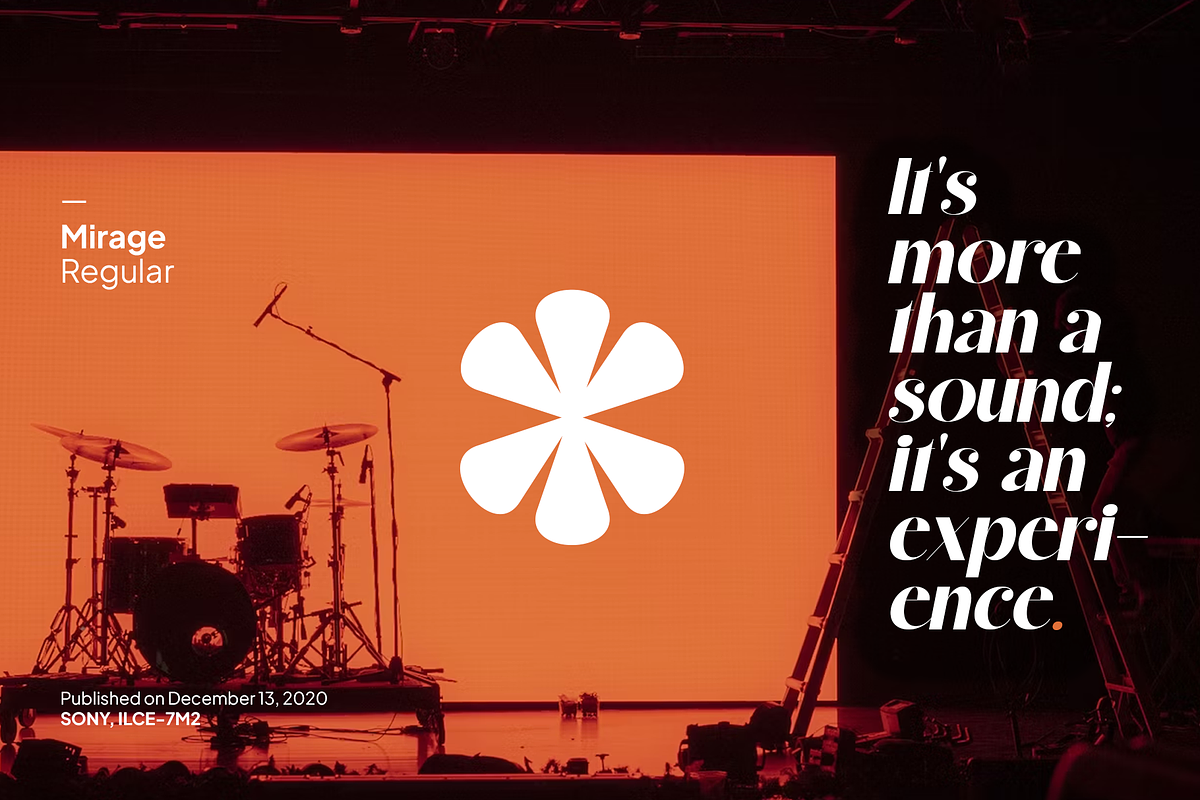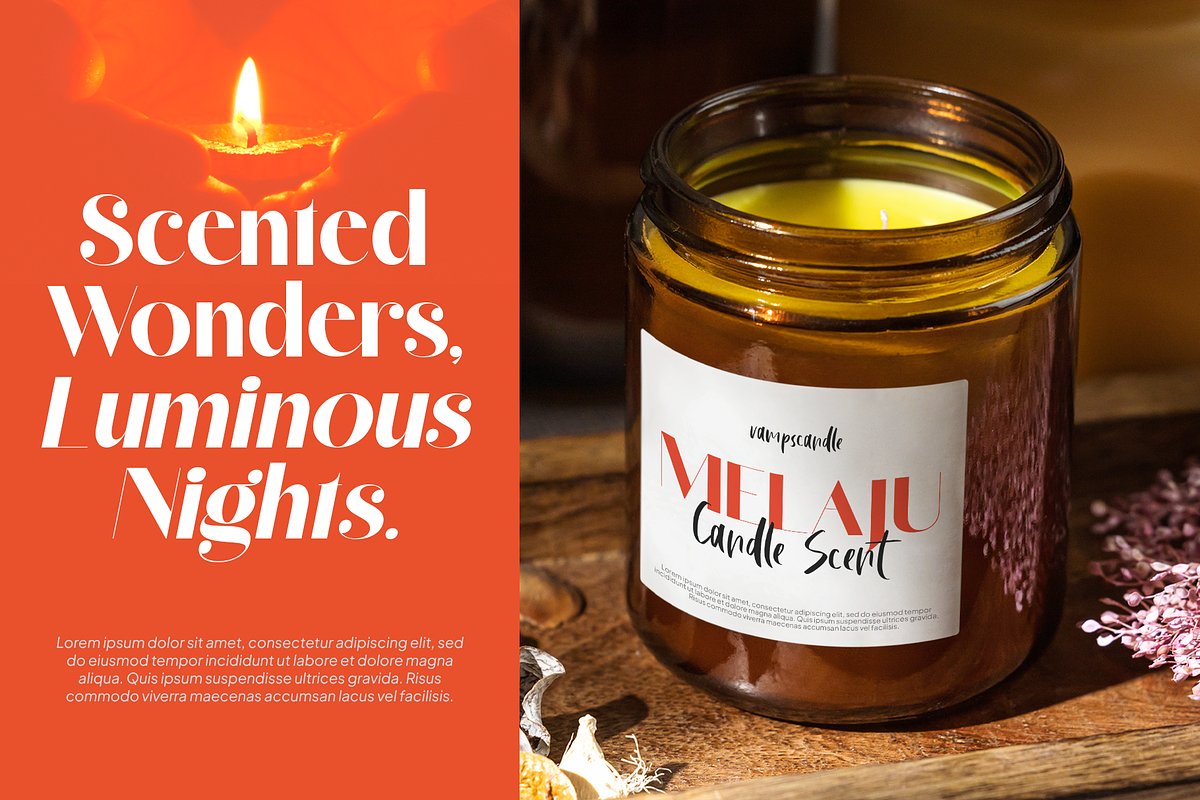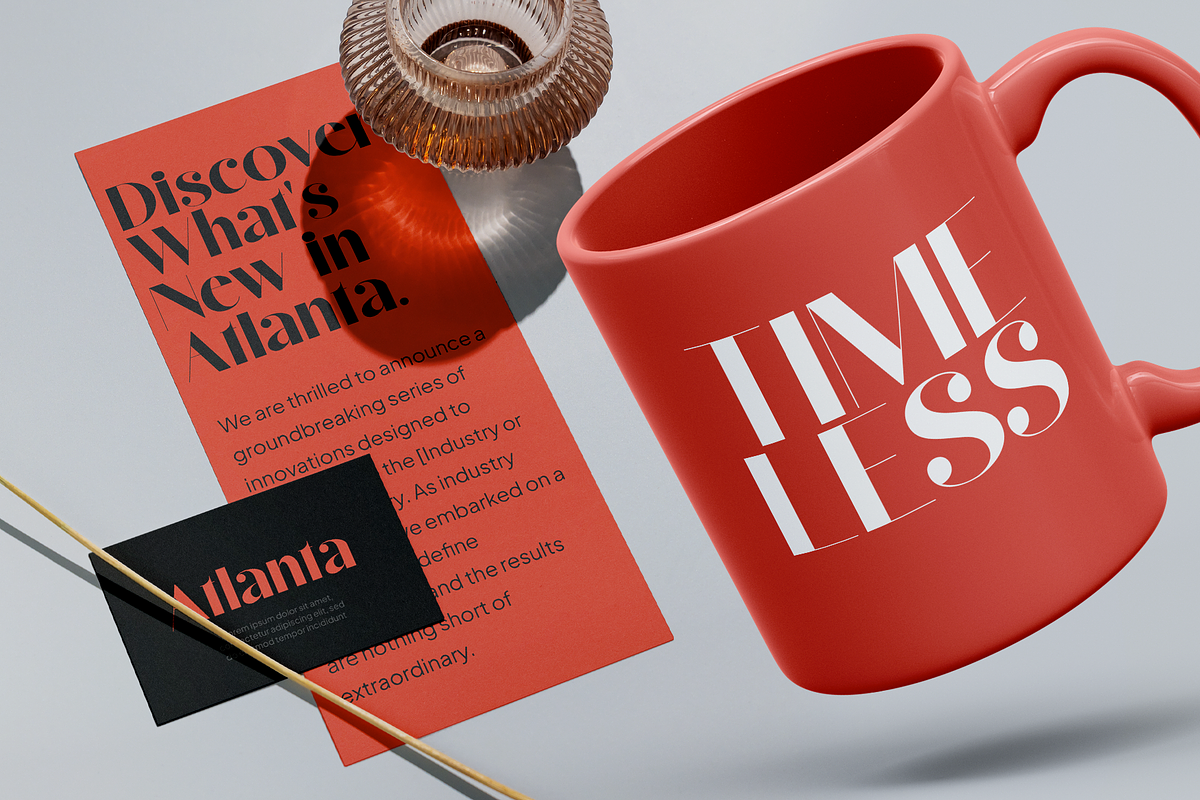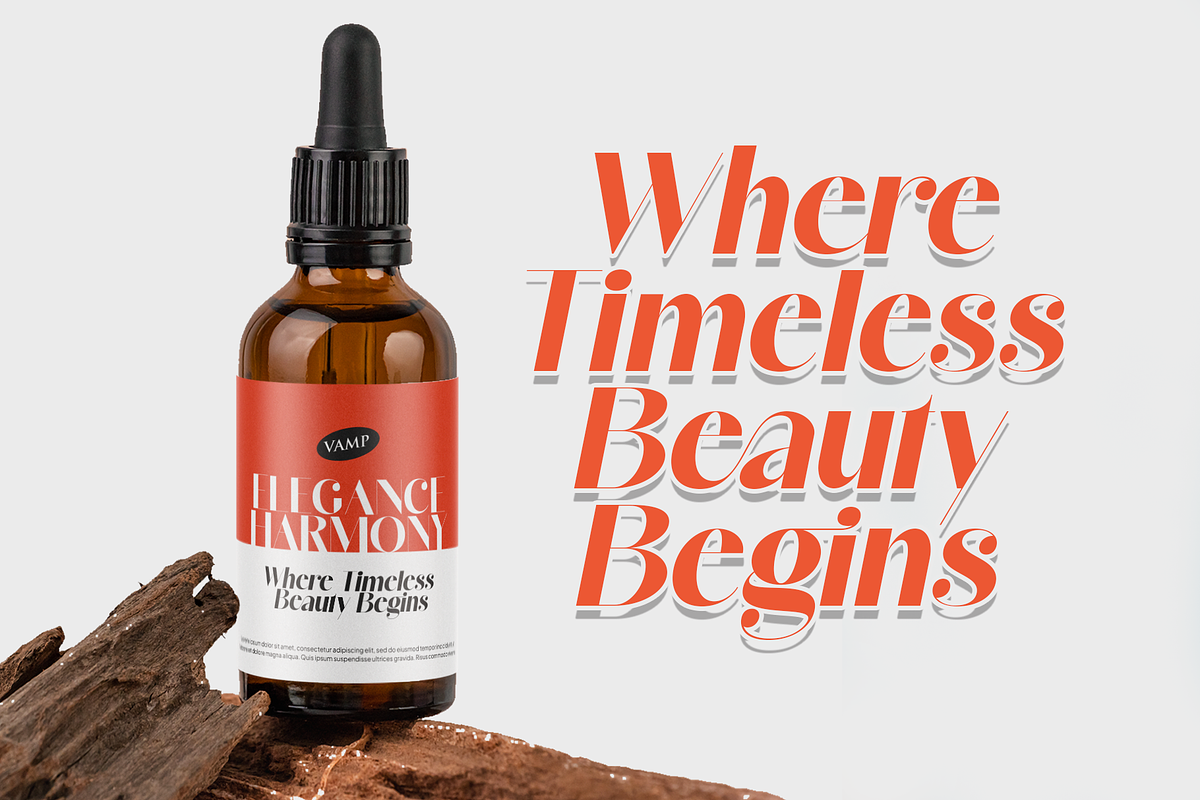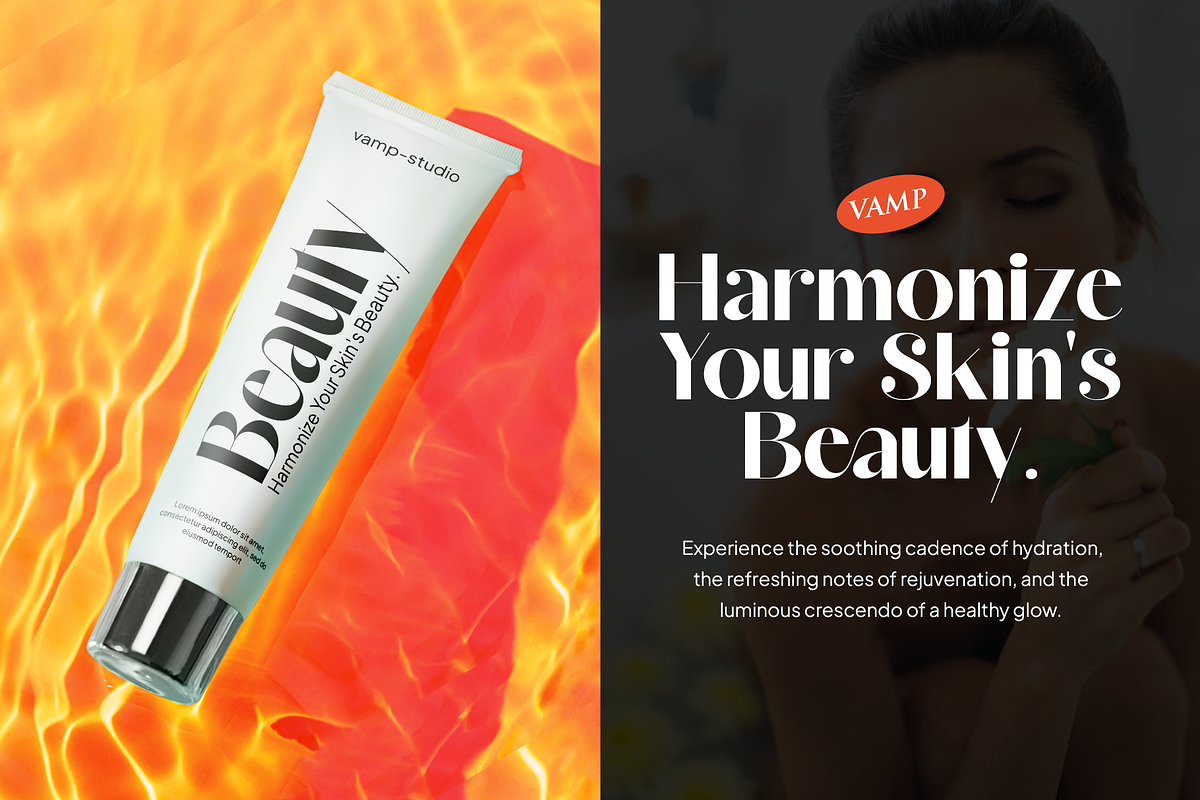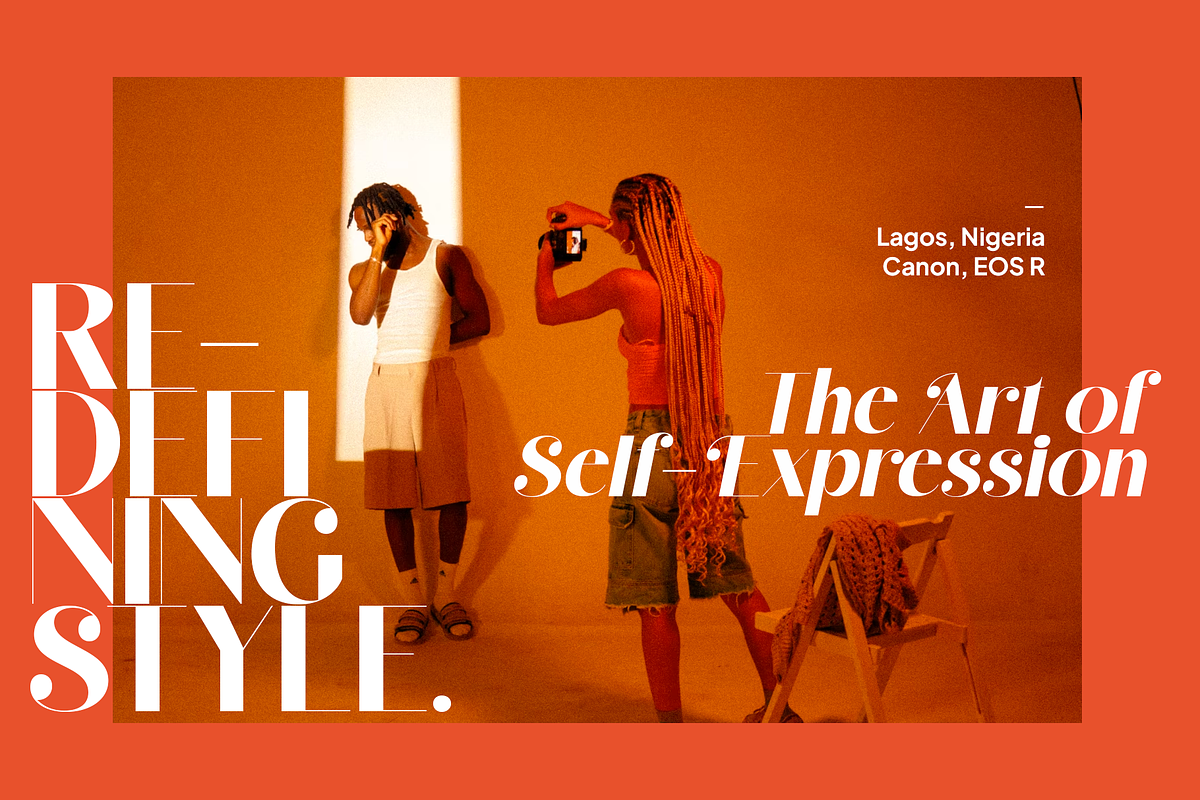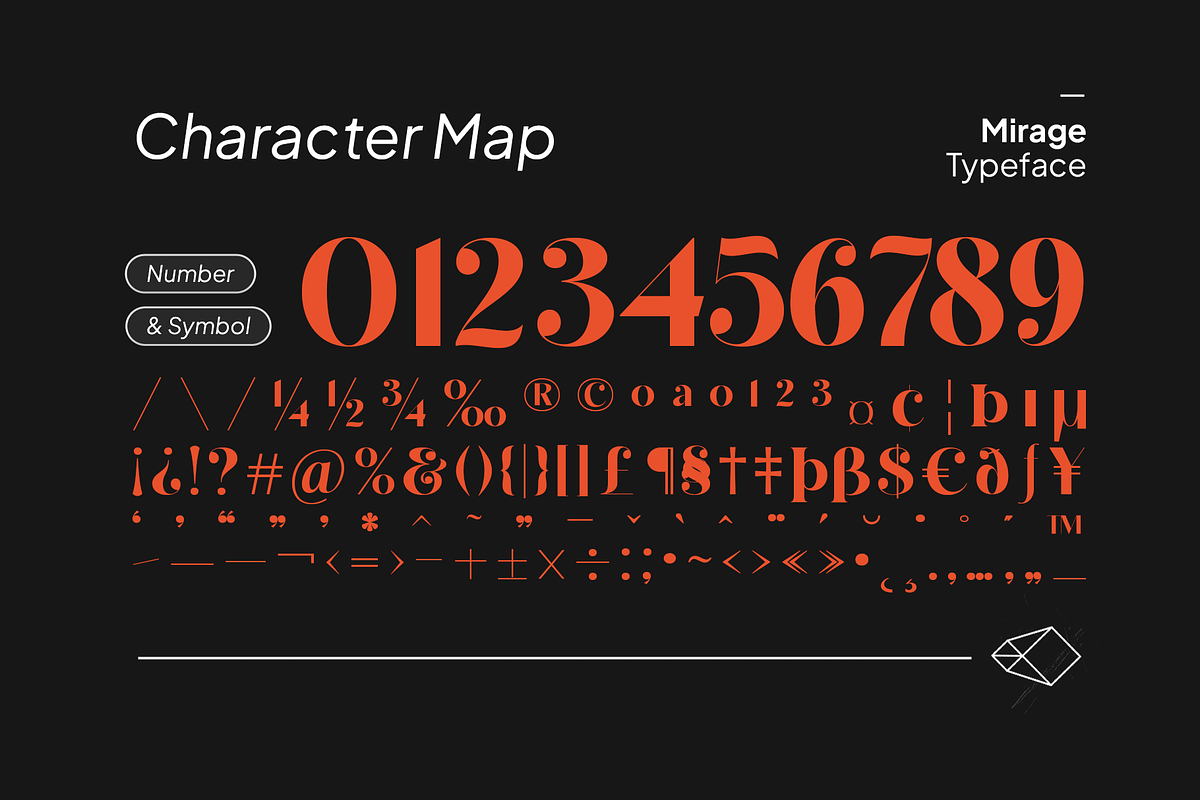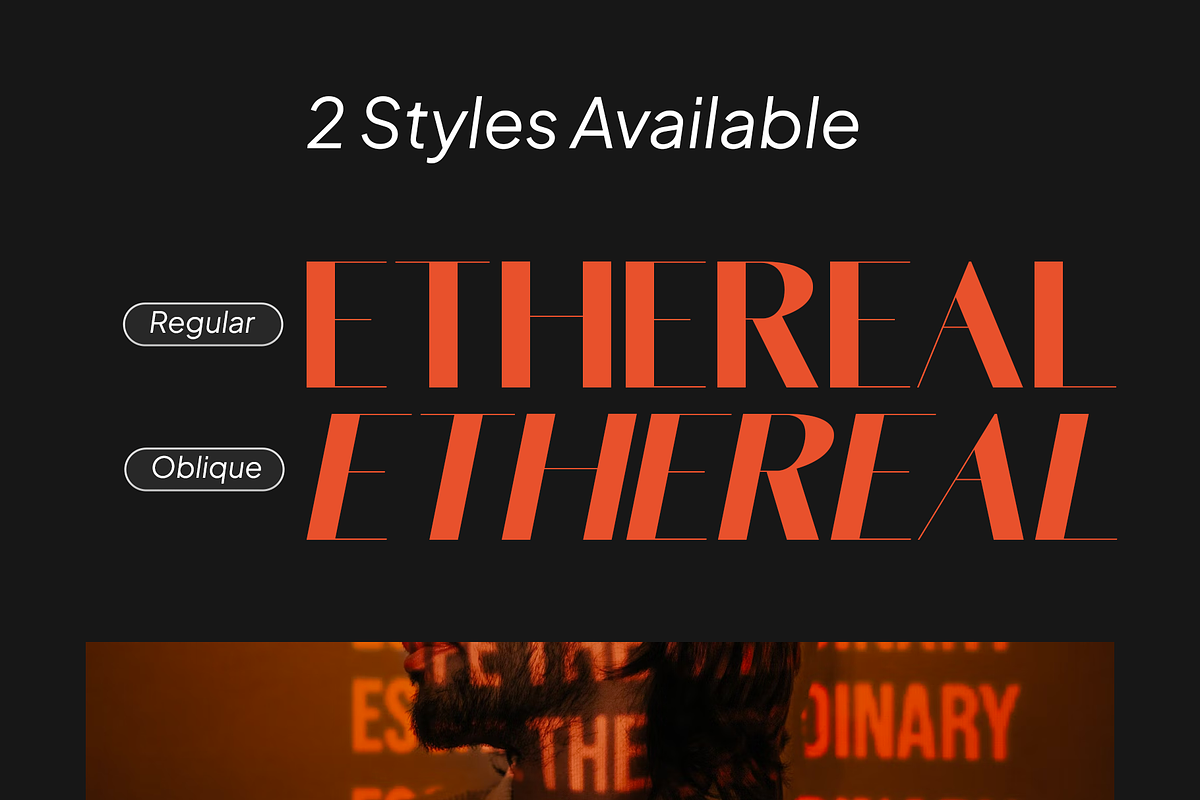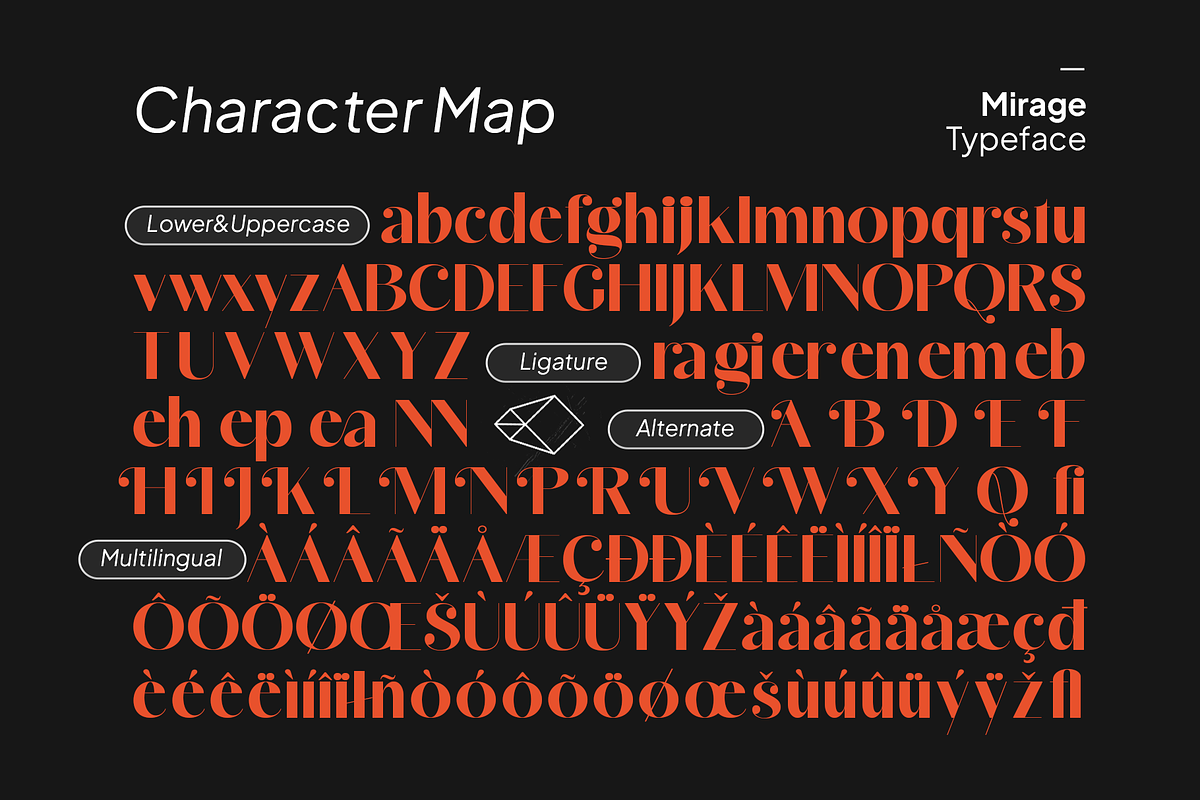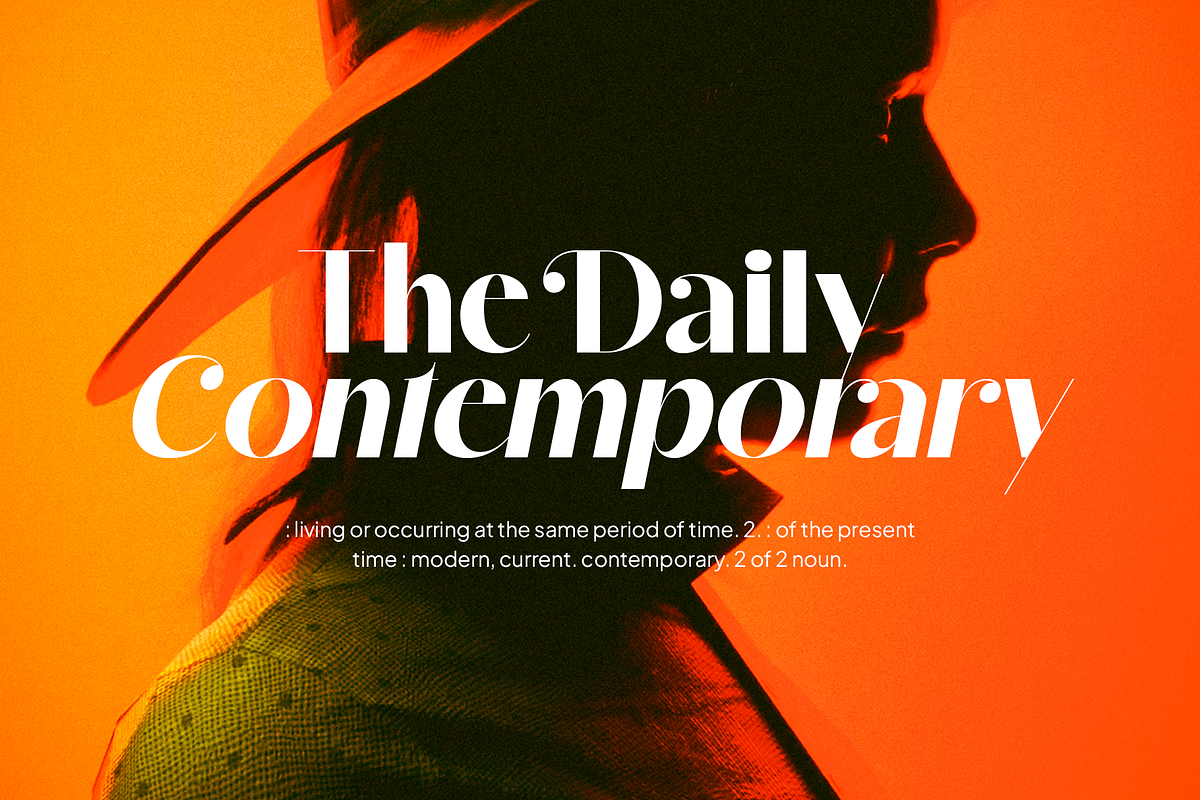
Mirage Timeless Sans Serif Font
Mirage is a modern elegant serif typeface. This font looks very simple, clean, and elegant. Specially designed by skilled hands makes this font is the perfect fit for all your big projects.
Mirage is perfect for branding projects, logo, wedding designs, social media posts, advertisements, product packaging, product designs, label, photography, watermark, invitation, stationery and any projects that need handwriting taste.
- Fonts include multilingual support for; Afrikaans, Albanian, Czech, Danish, Dutch, English, Estonian, -Finnish, French, German, Hungarian, Italian, Latvian, Lithuanian, Norwegian, Polish, Portuguese, Slovak, Slovenian, Spanish, Swedish.